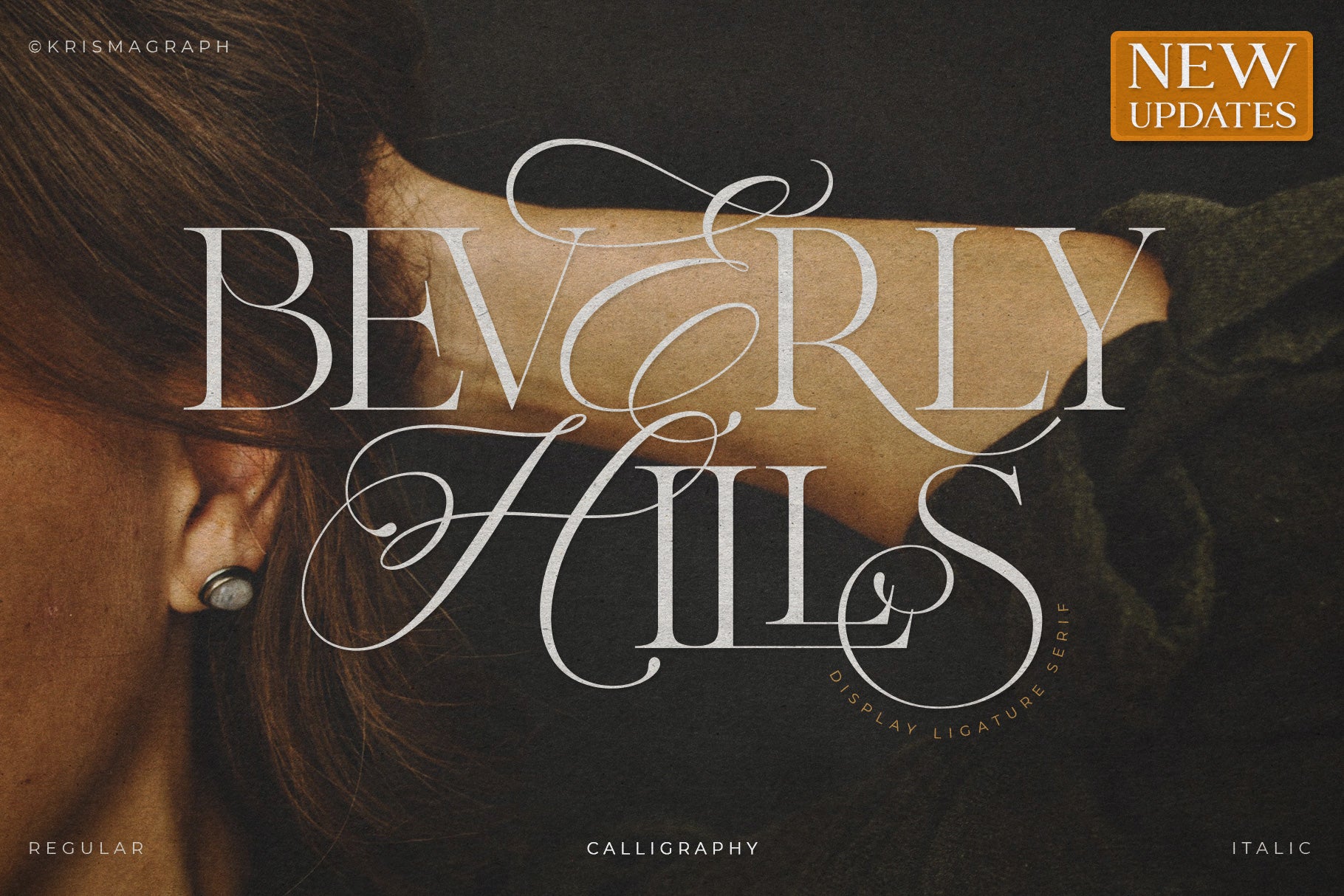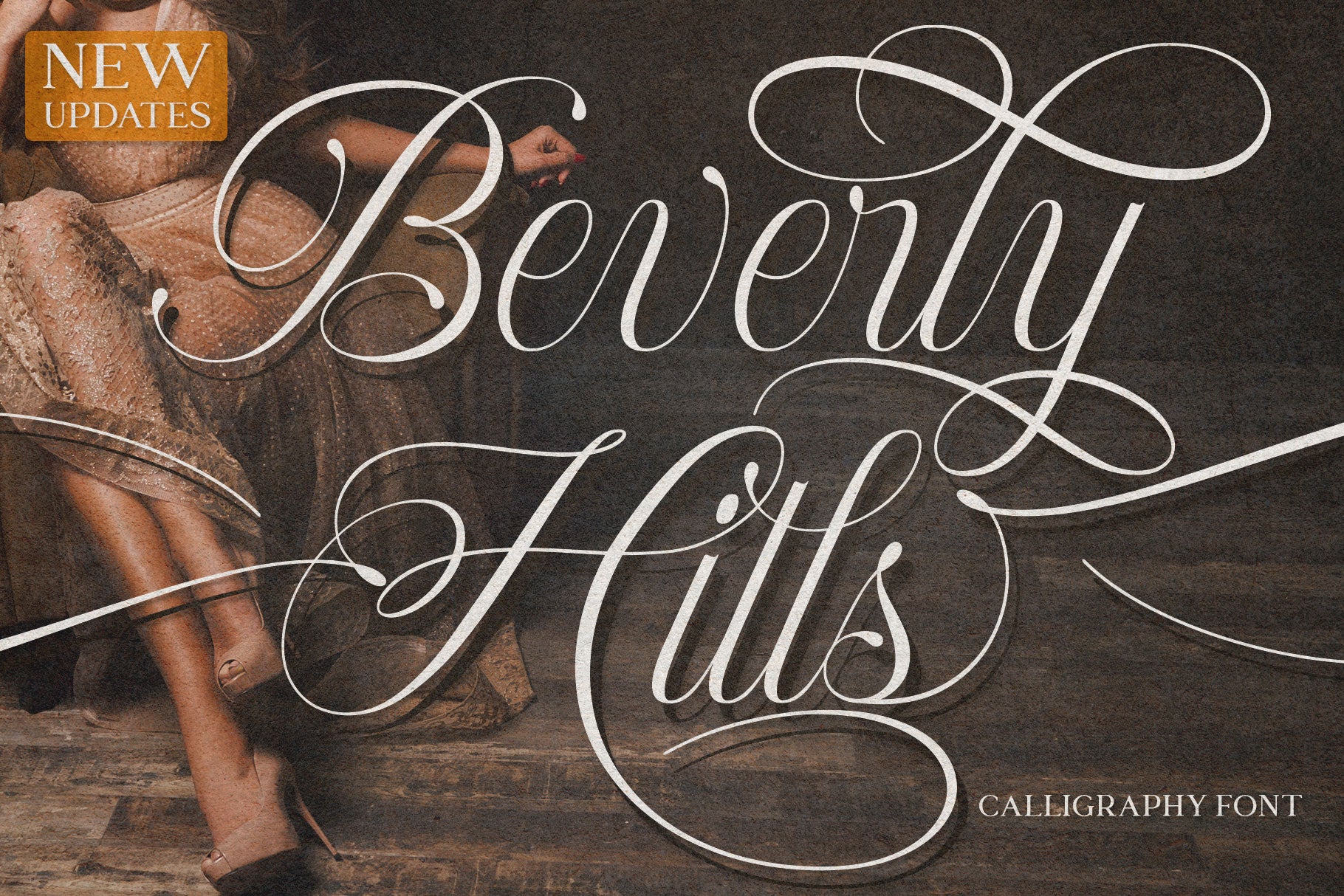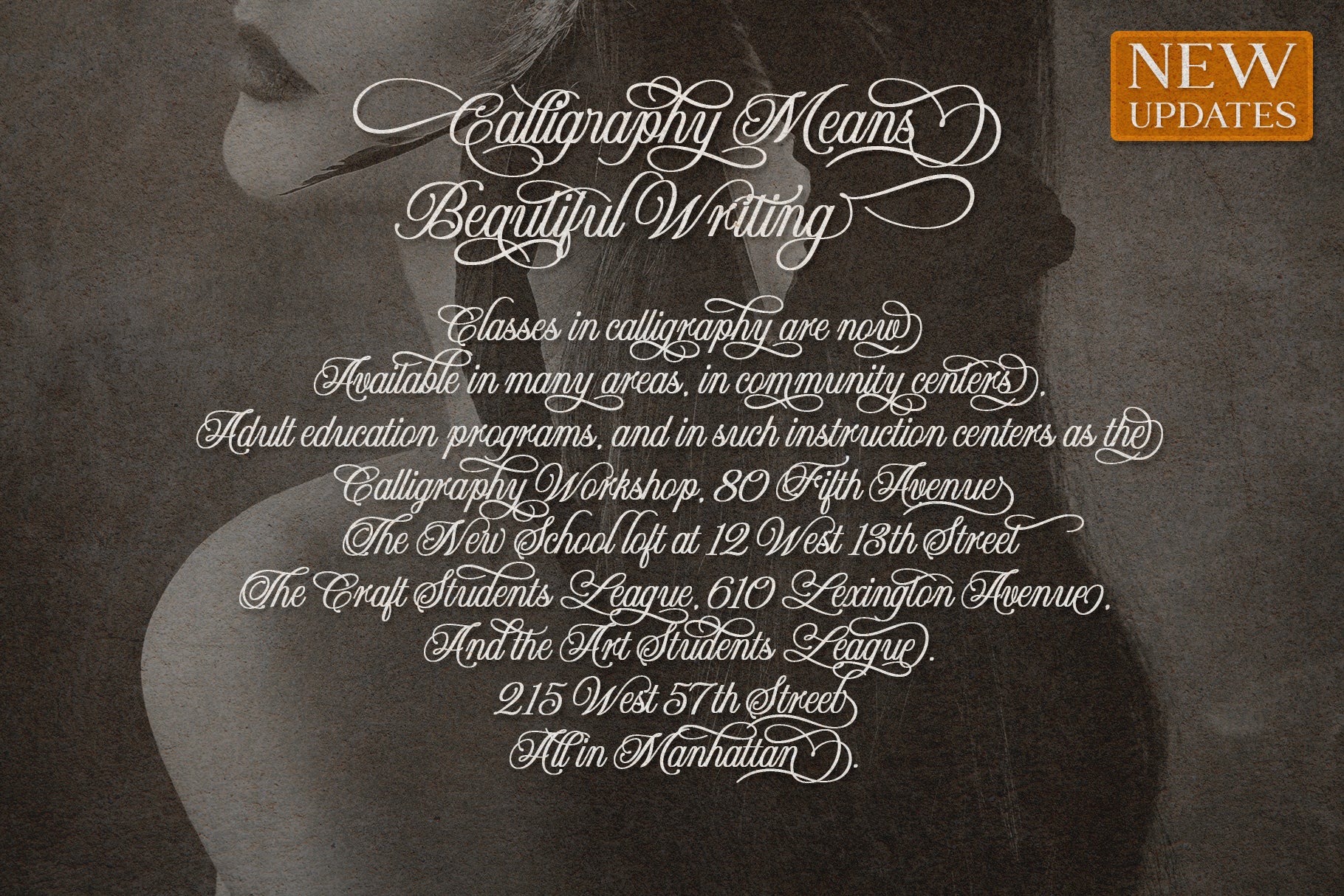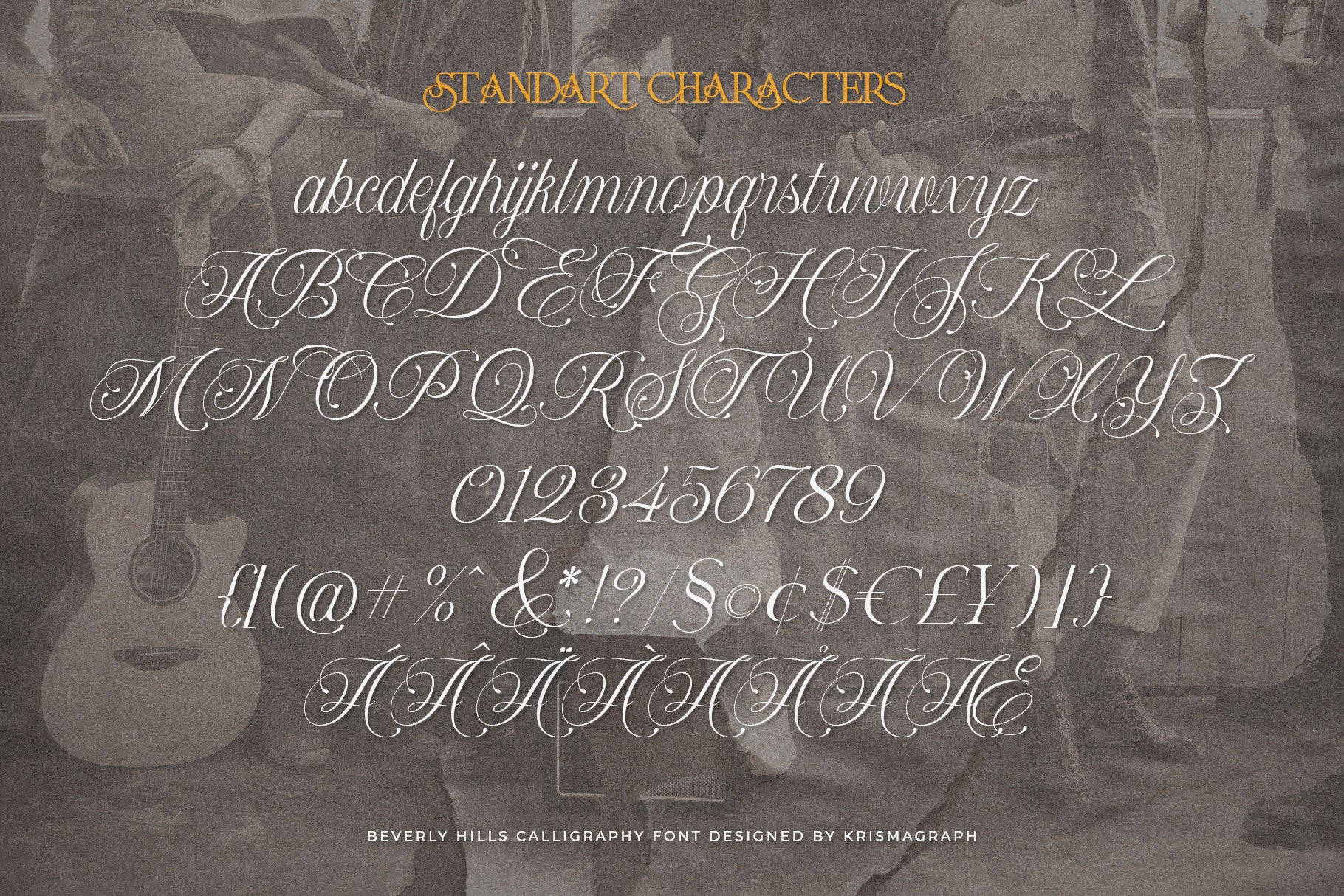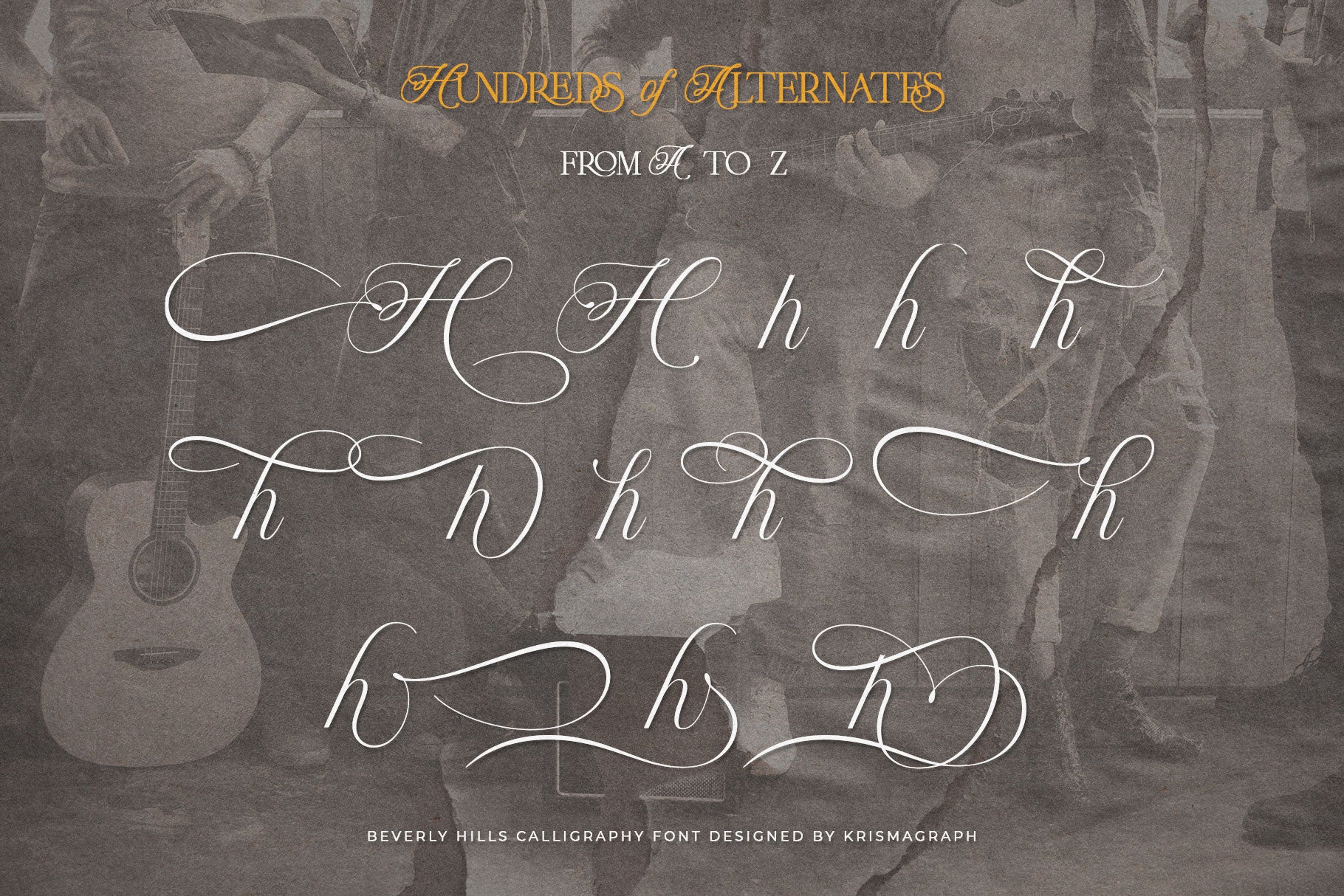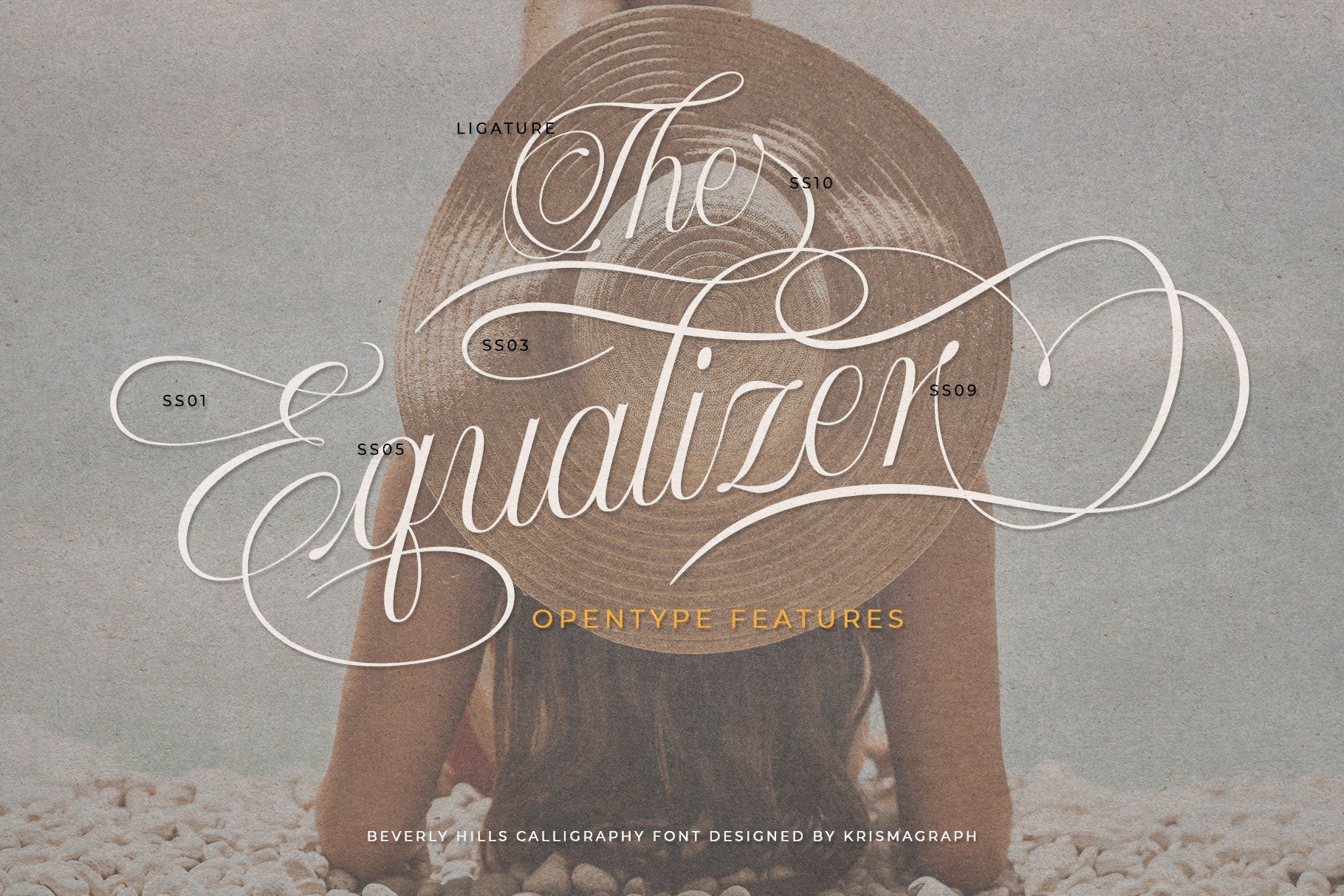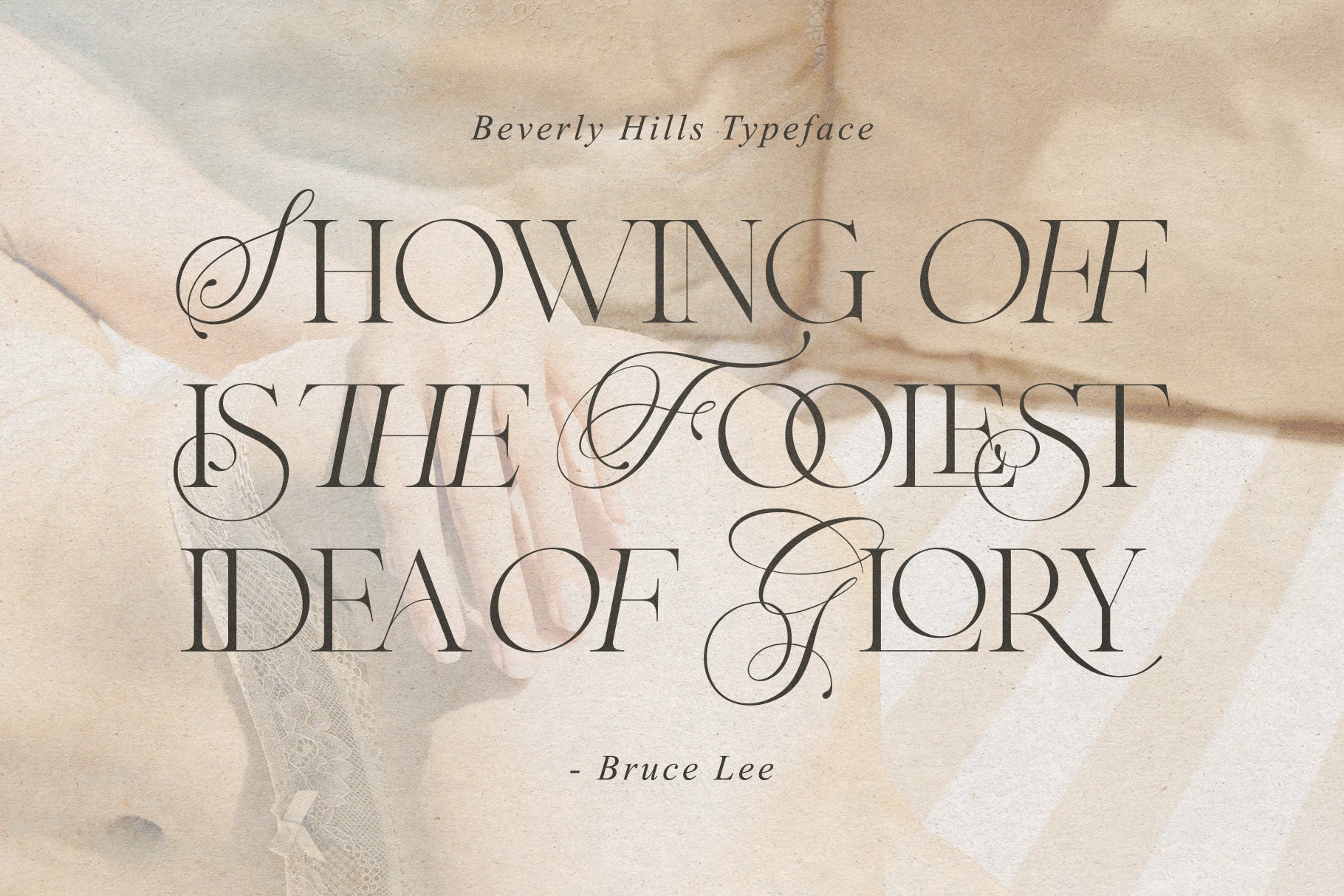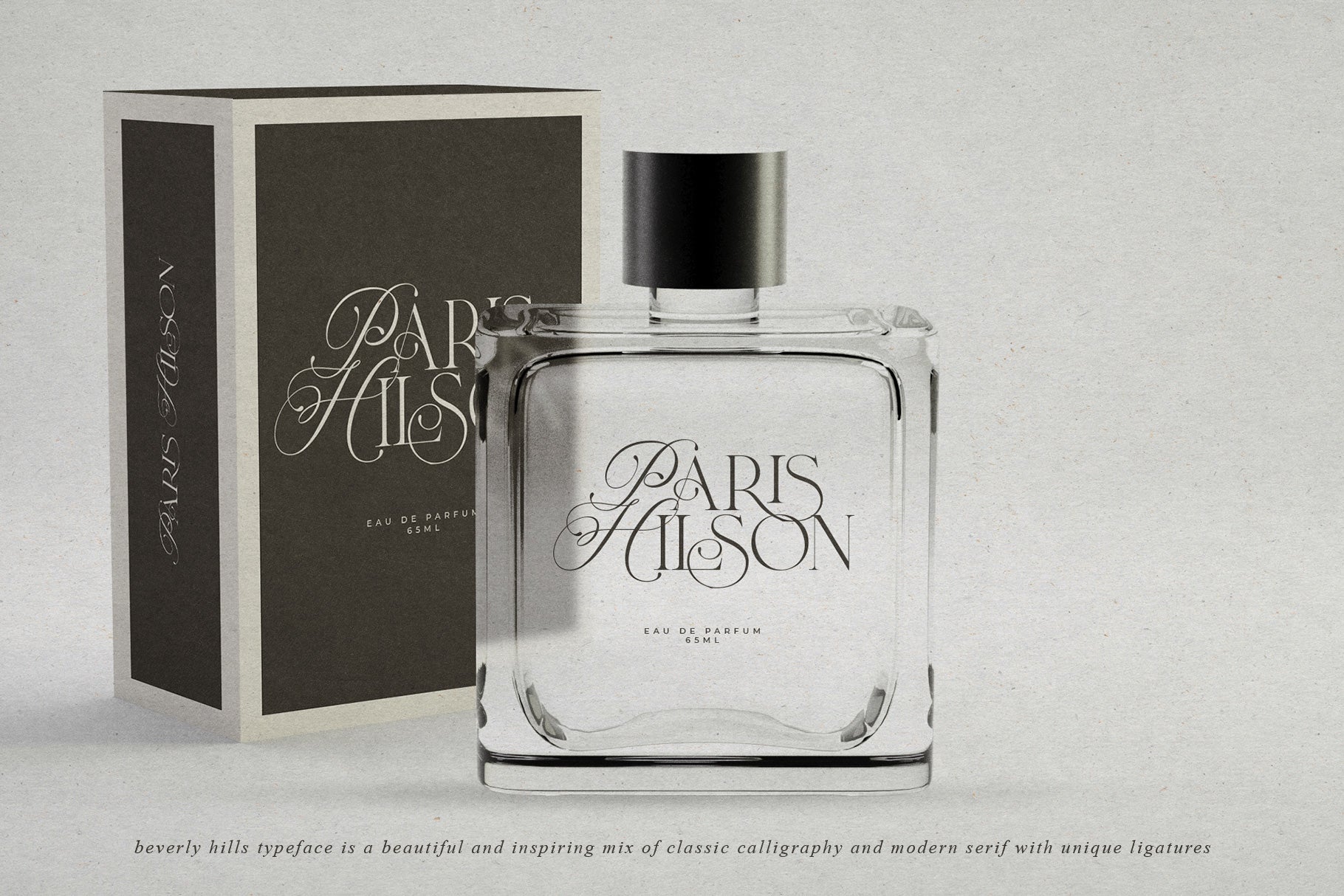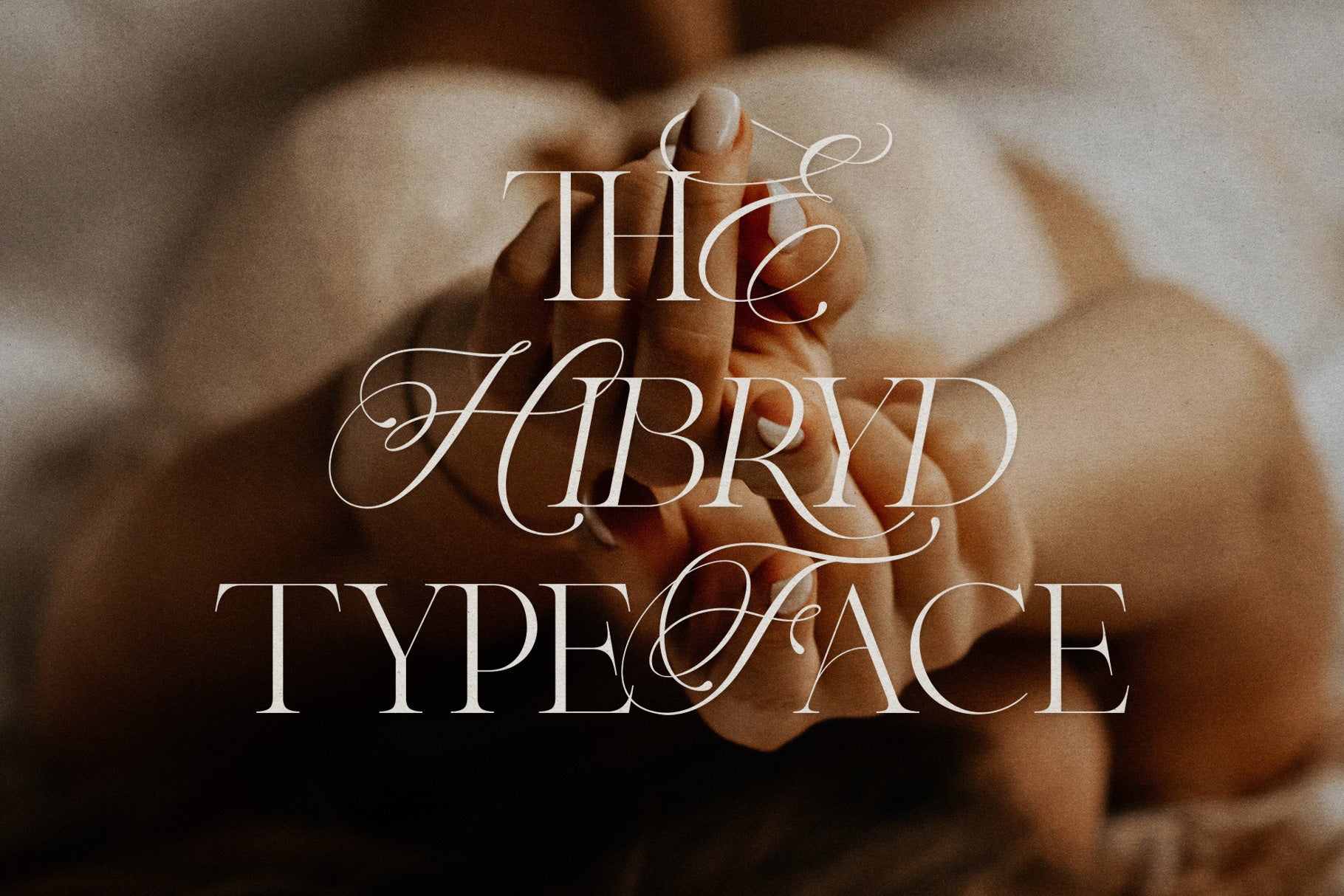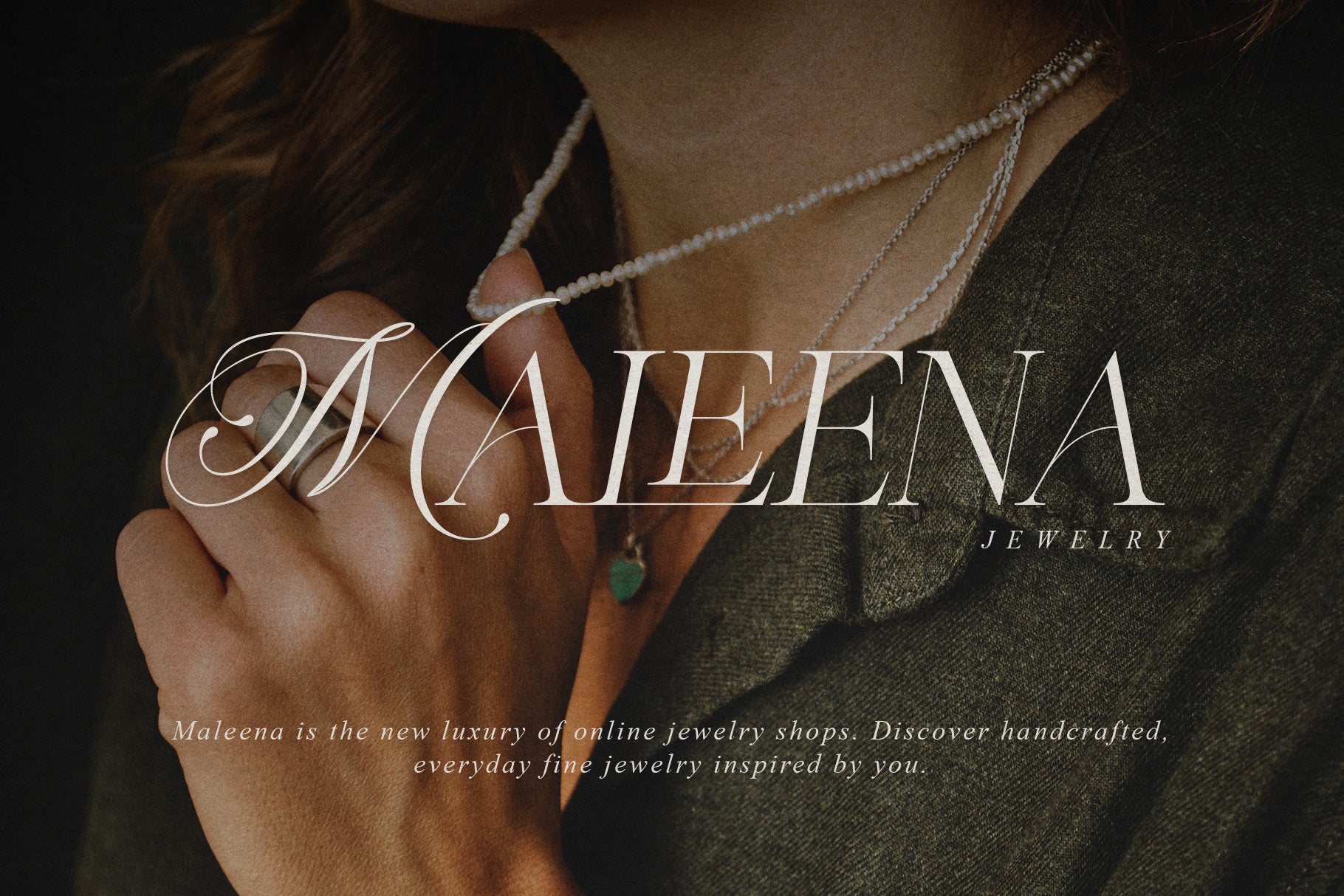
Beverly Hills
Beverly Hills typeface is a beautiful and inspiring mix of classic calligraphy and modern serif with 56 unique ligatures. Comes with 3 versions regular, italic & calligraphy.
Beverly Hills is made mainly for headlines, titles, and other short texts and is well-suited for advertising, vintage mood boards, branding, logotypes, packaging, titles, editorial design, modern logos, websites, social media quotes, wedding branding, modern and vintage design.